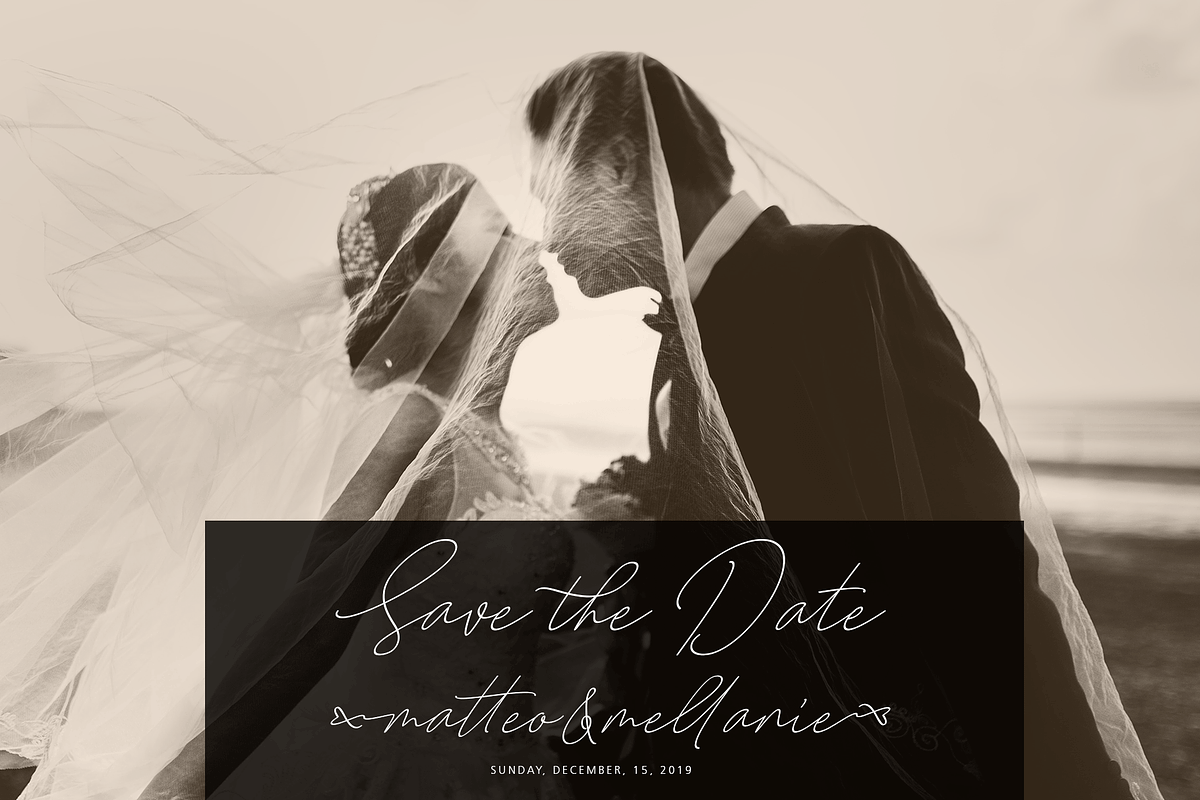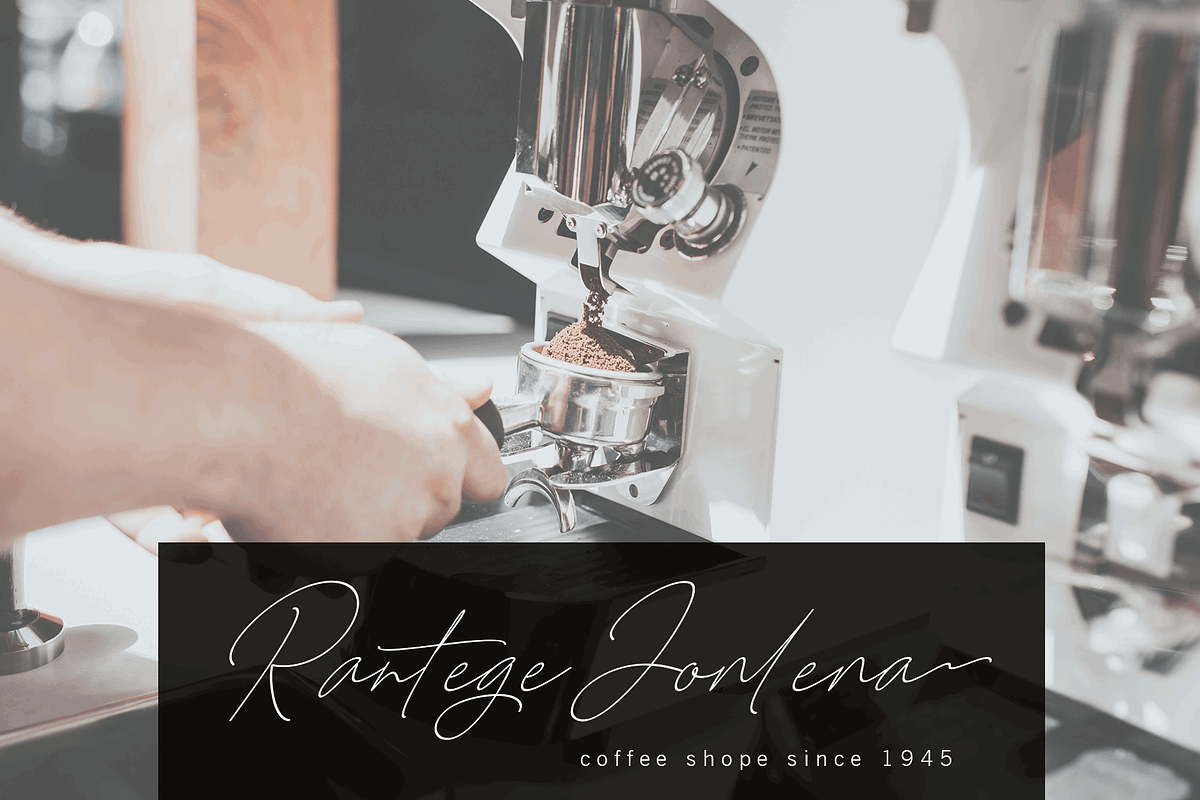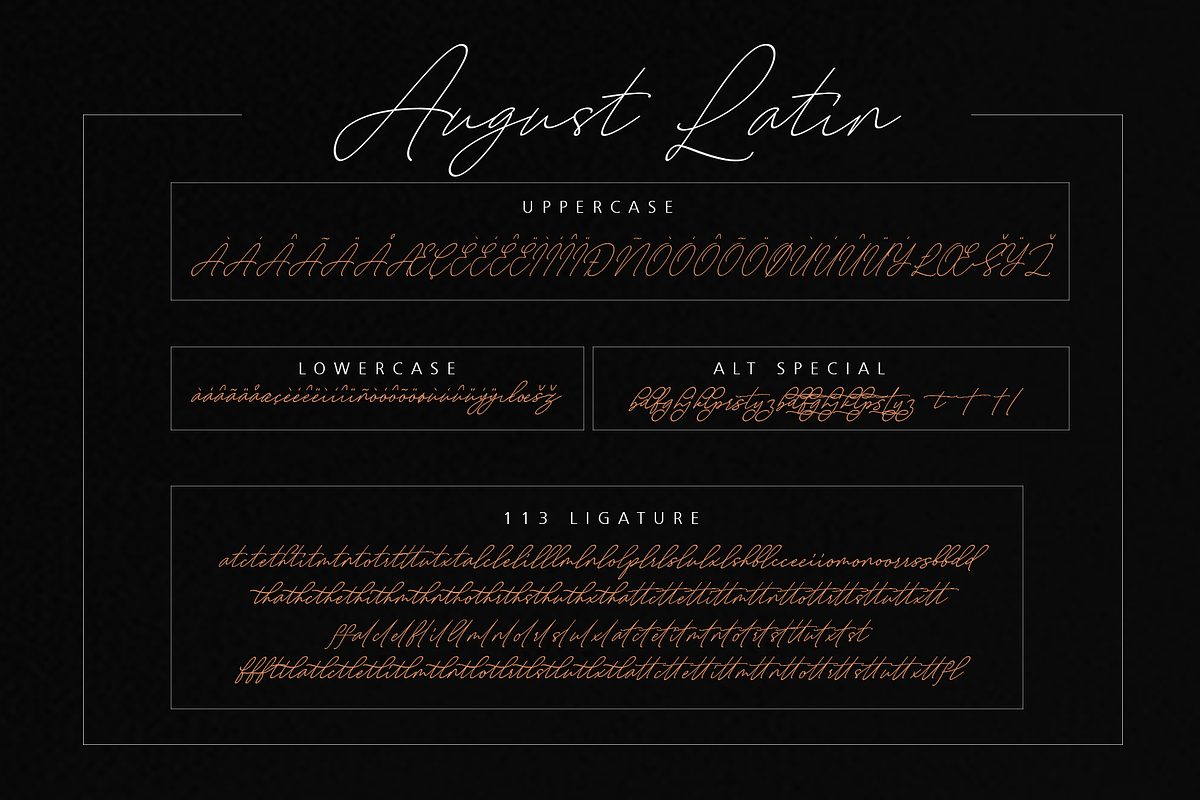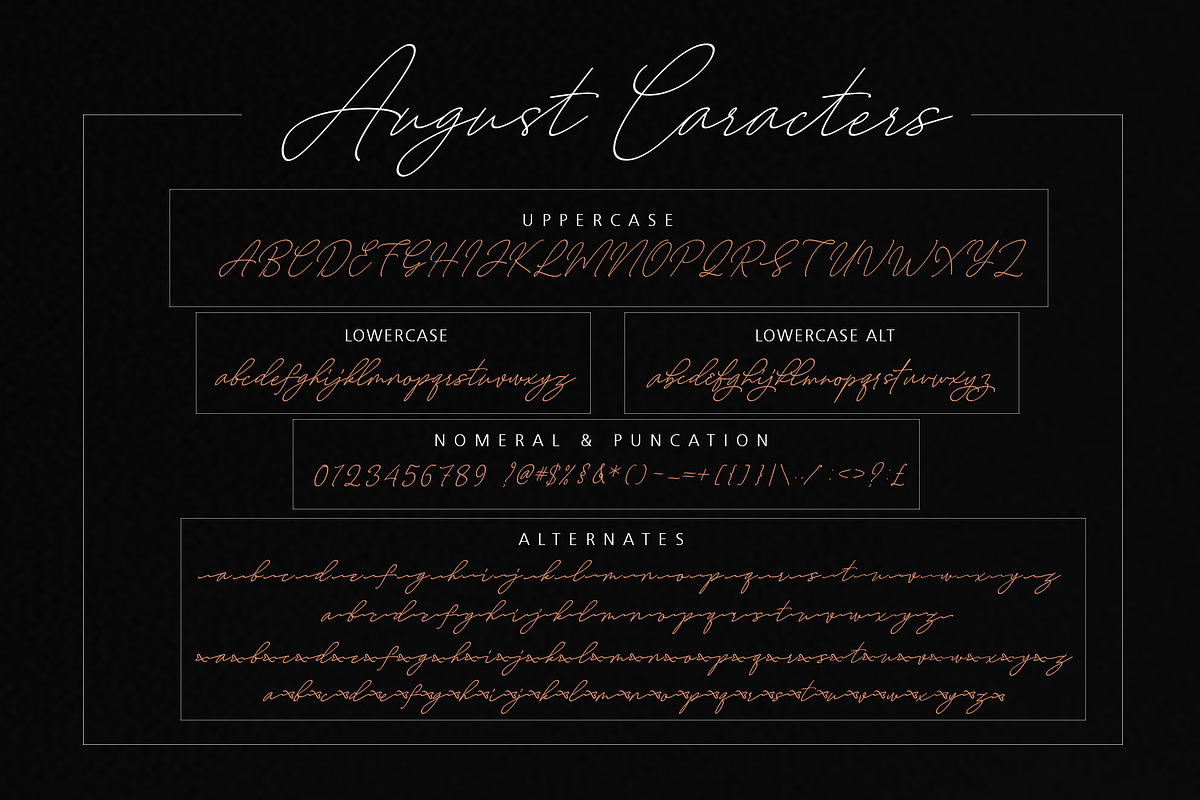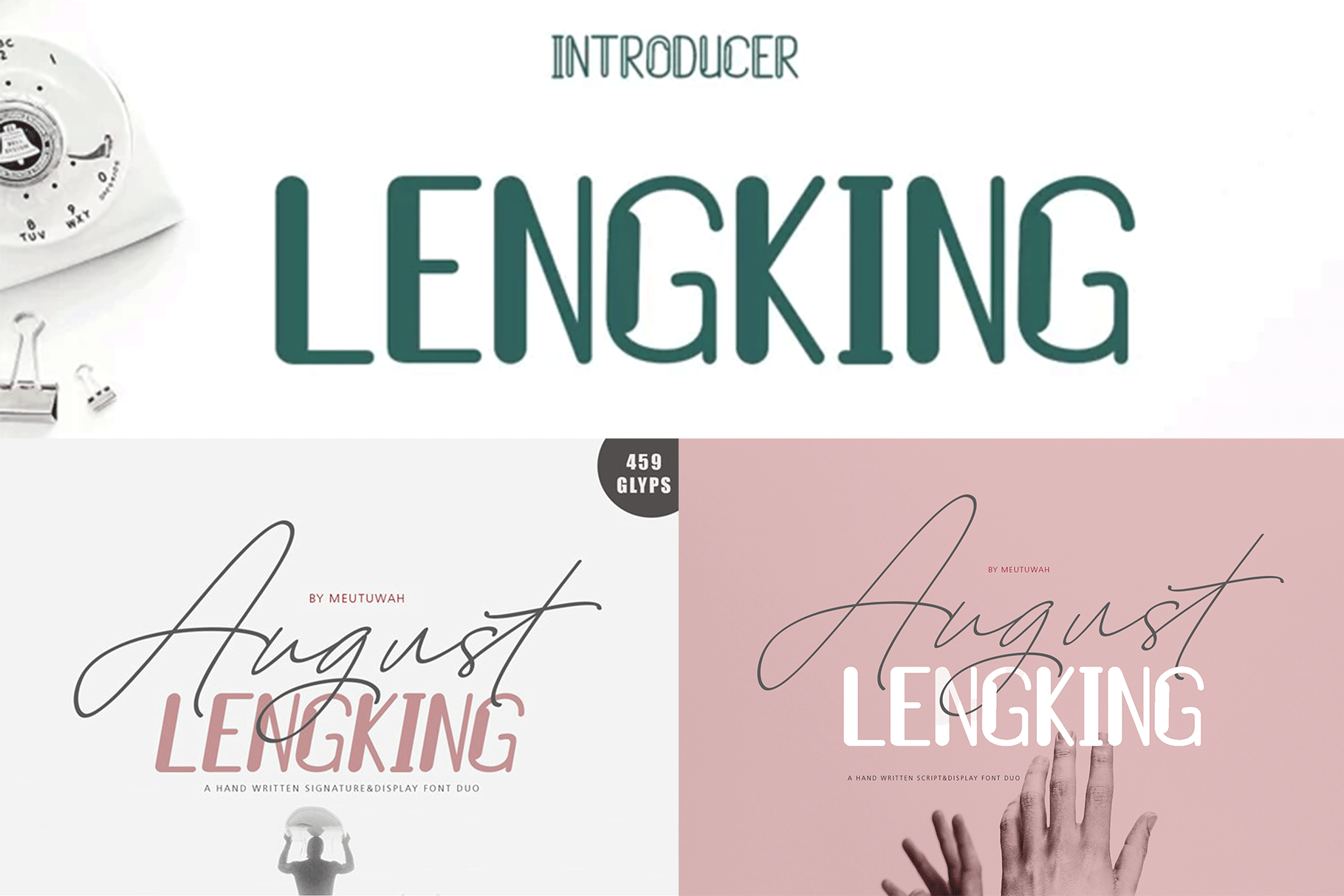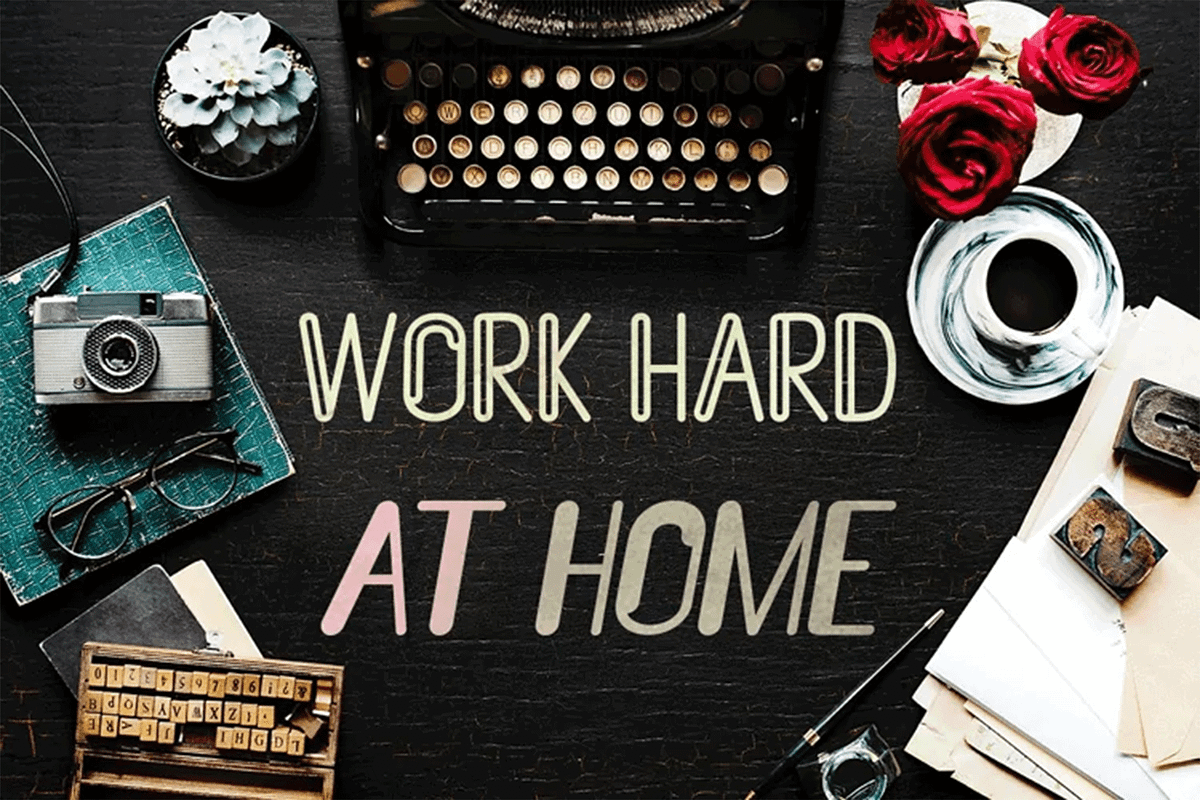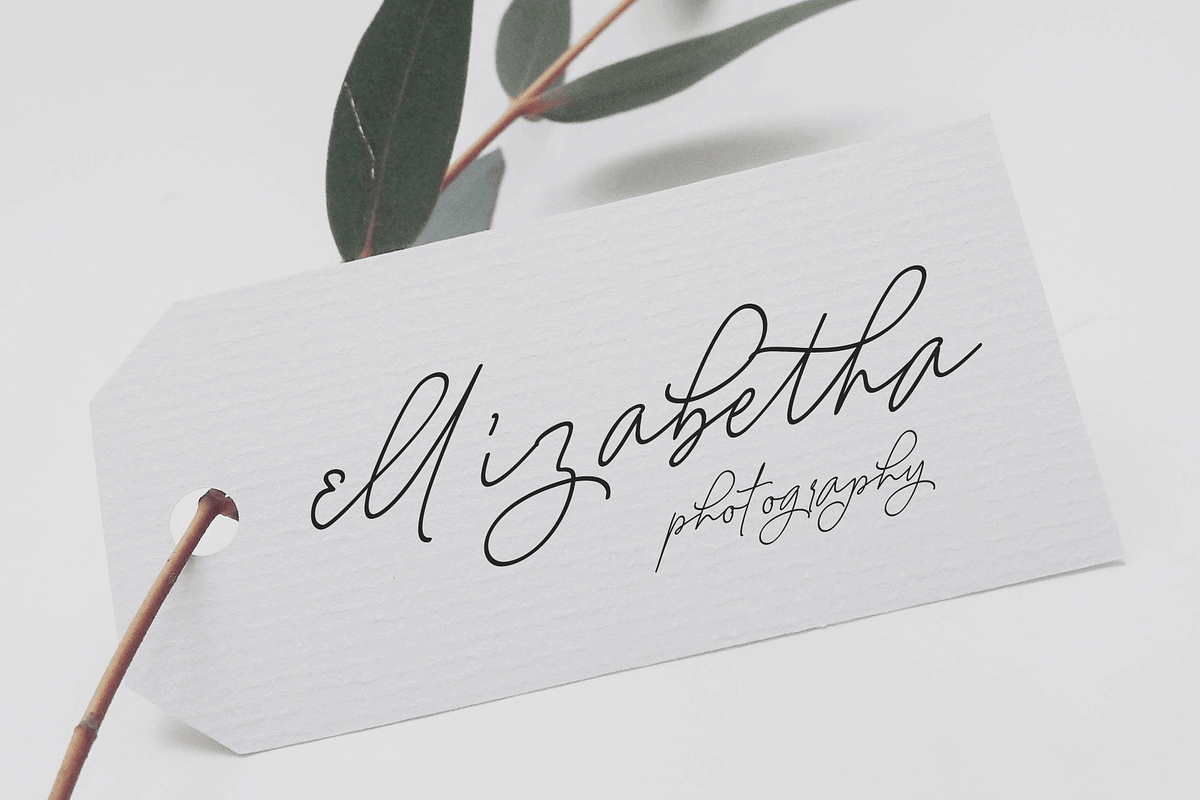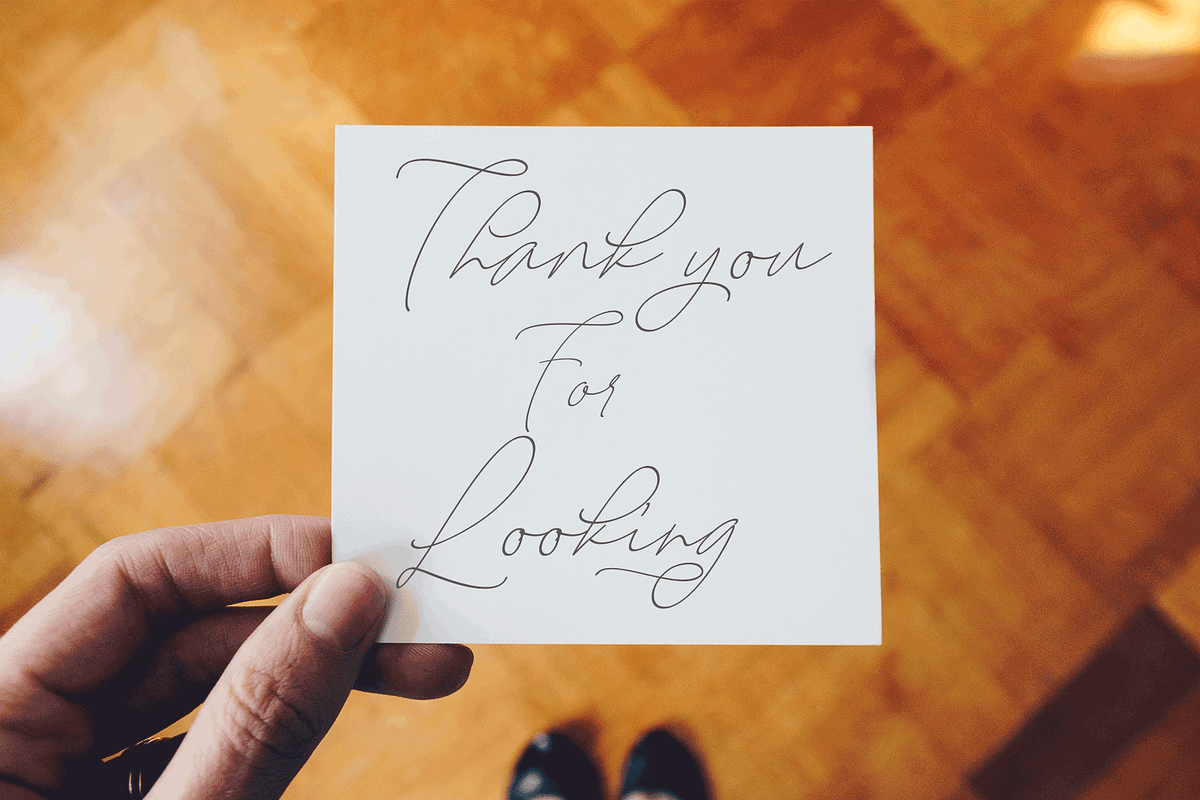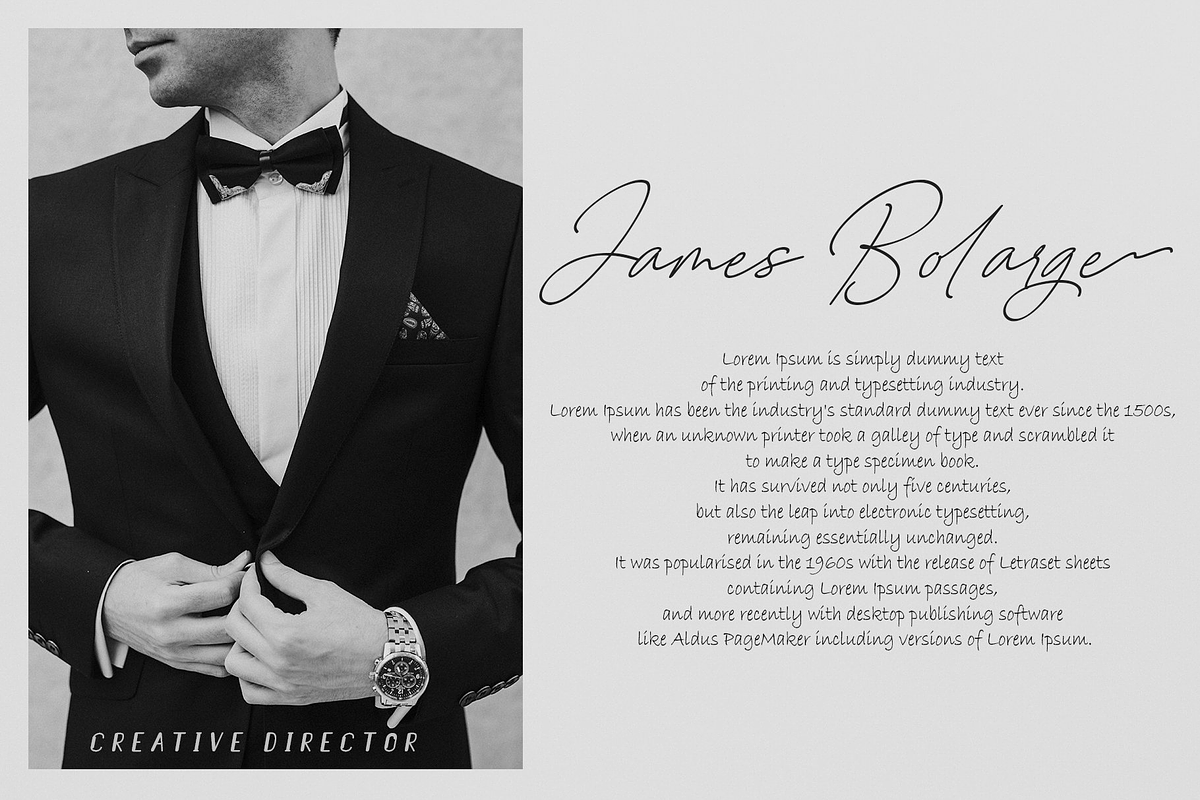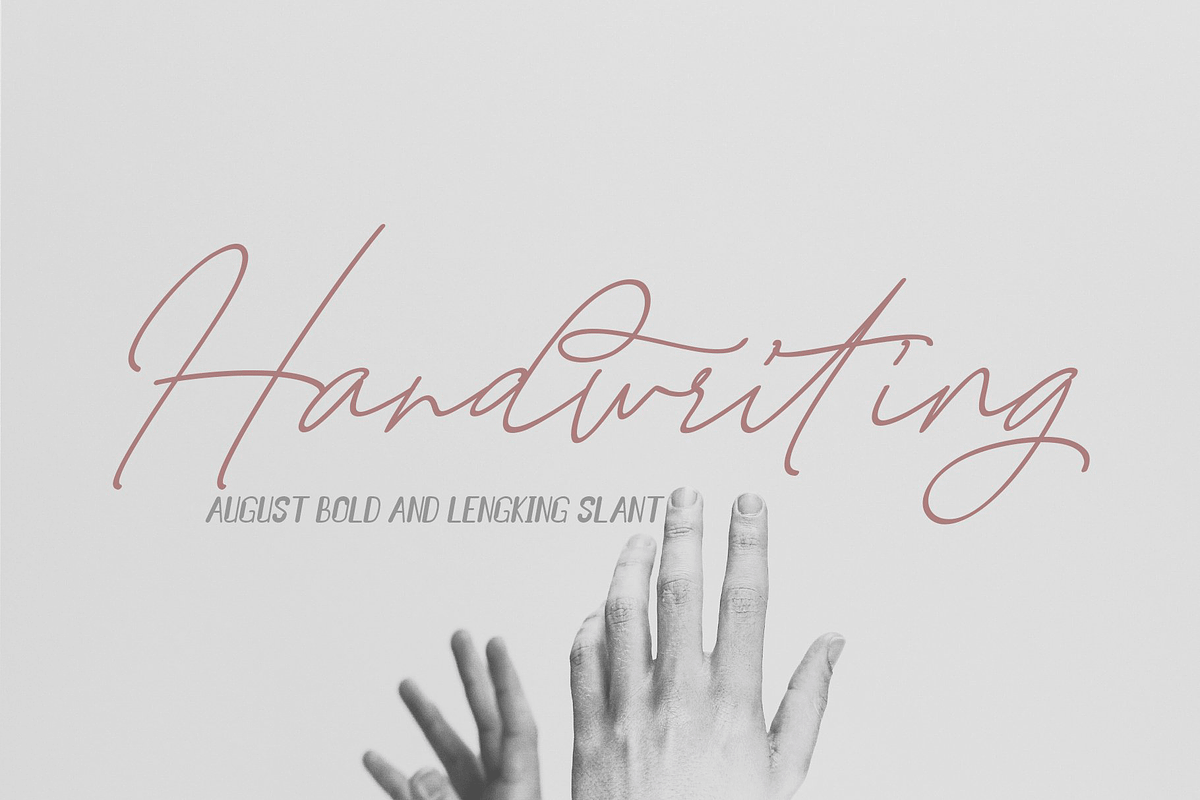
August & Lengking 6 Font Update
Intro 6 Font List
- August Script
- August Script Bold
- Lengking
- Lengking Slant
- Lengking Dis
- Lengking Dis Slant
Hello Font Lovers. August & LENGKING 4Font, is another lovely modern script, signature and display font, which is combining the style of classic calligraphy with an modern style. combines from copperplate to contemporary typeface with a dancing baseline, modern and elegant touch. including alternates, and ligatures.
Can be used for various purposes.such as headings, logos, wedding invitation, t-shirt, letterhead, lable, news, posters, badges etc.